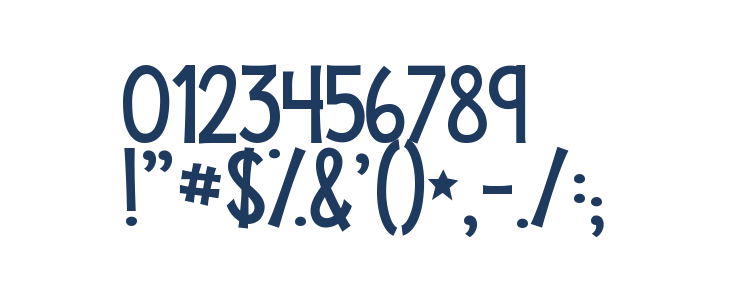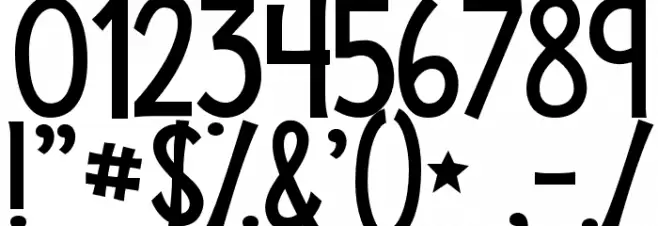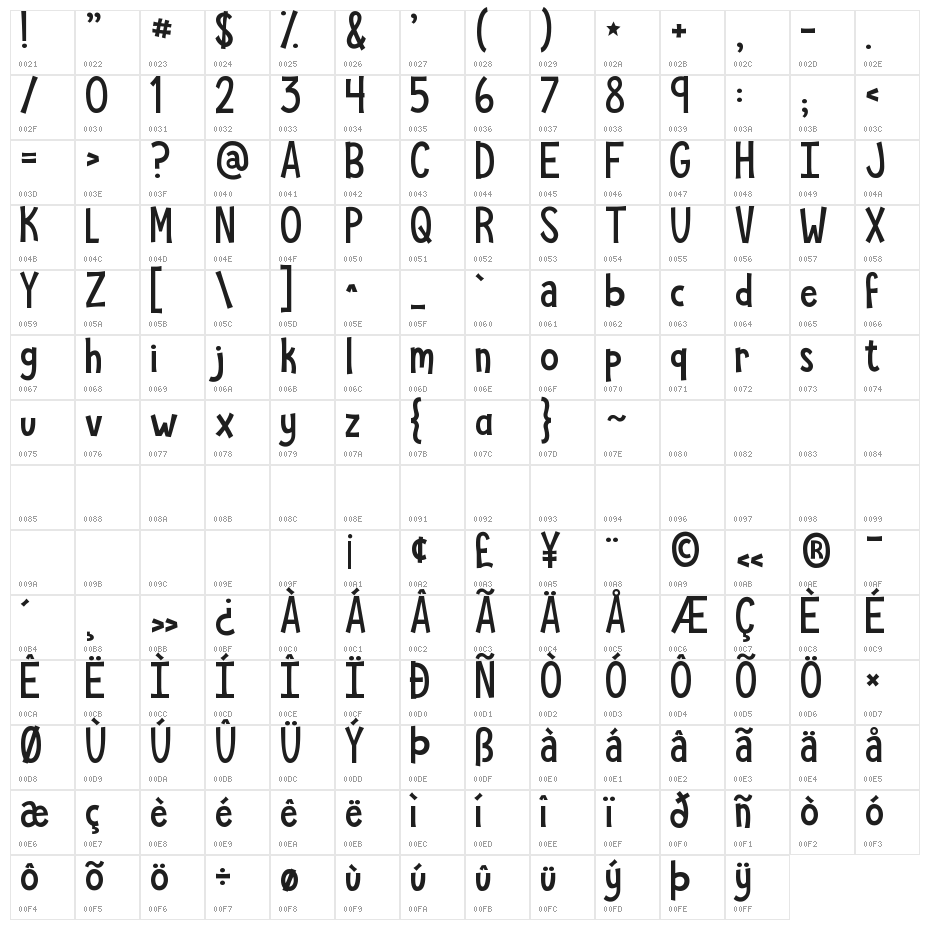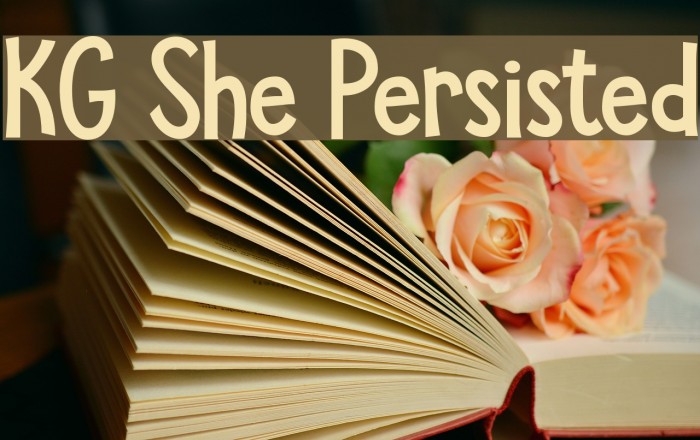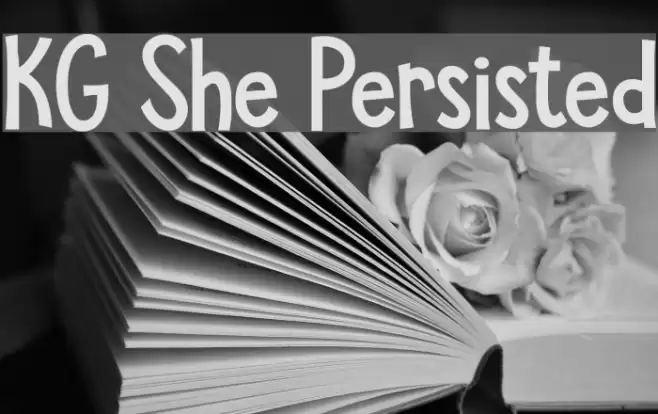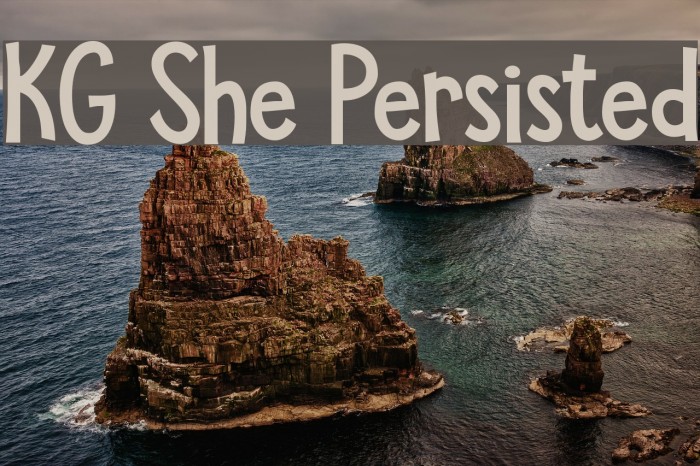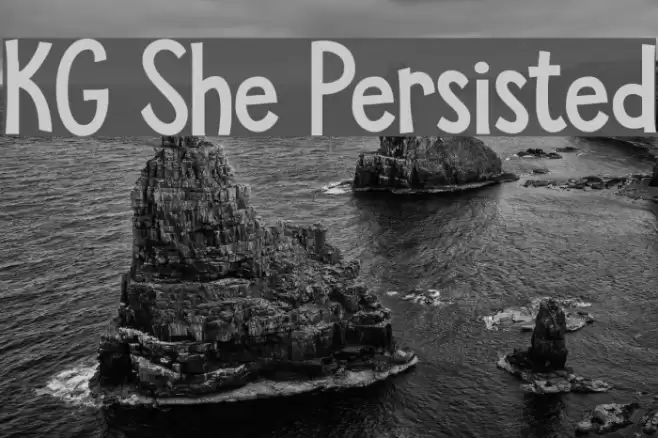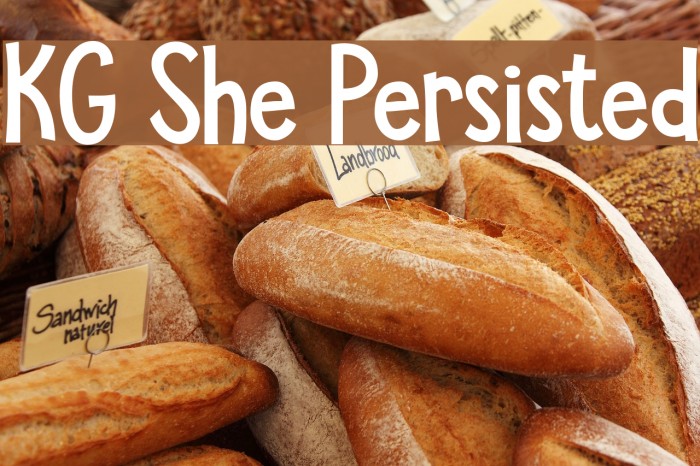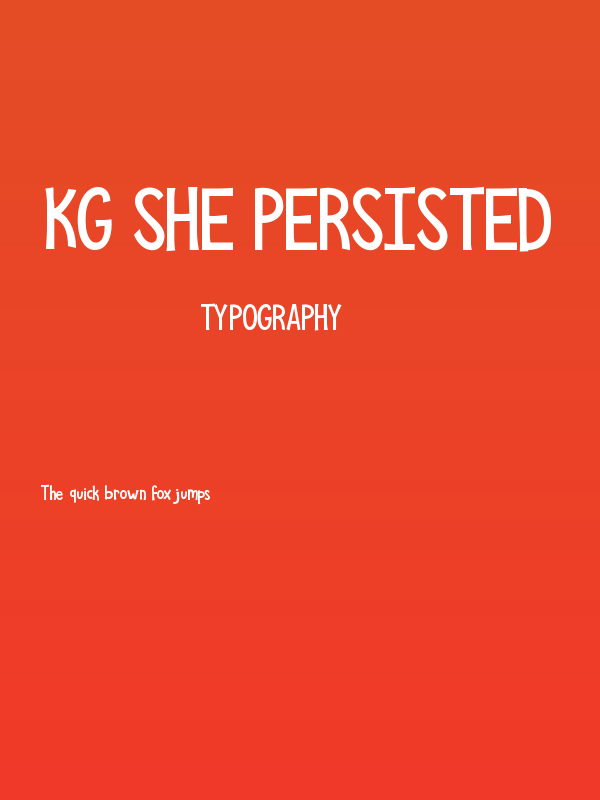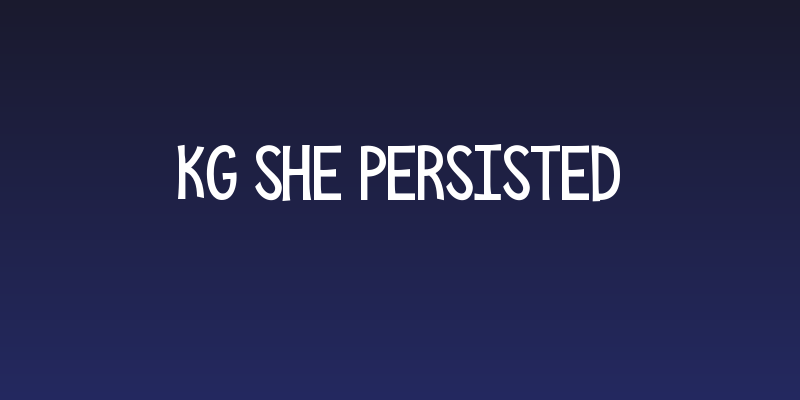
KG She Persisted Font
KG She Persisted Description
This font features a playful and whimsical style with a hand-drawn appearance. The letters are bold and slightly irregular, giving them a unique and friendly character. The uppercase and lowercase letters maintain a consistent style, with rounded edges and varying stroke widths that add to the casual feel. The numerals and special characters follow the same design principles, ensuring a cohesive look across all text elements. This font is ideal for projects that require a personal touch, such as children's books, greeting cards, or playful branding.
| Overall Style | Whimsical |
| Proposed Projects | Ideal for children's books, greeting cards, playful branding, and creative projects. |